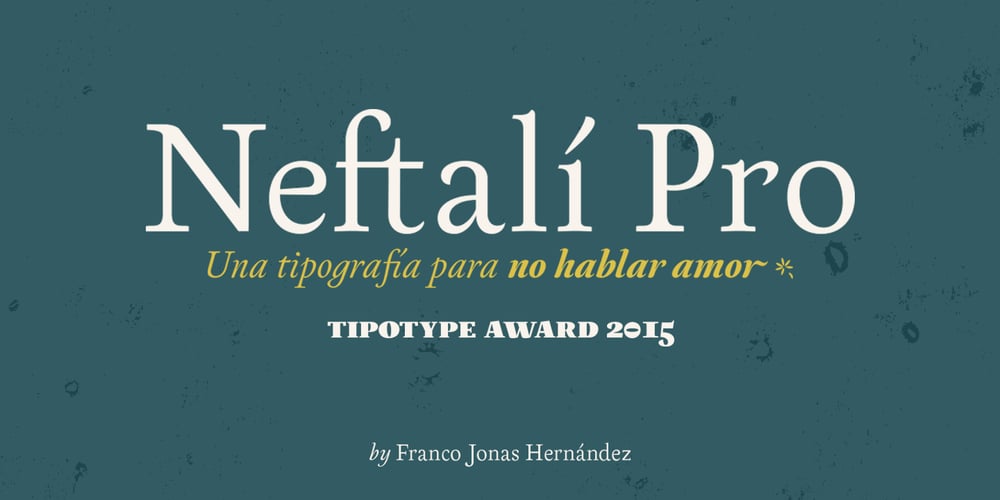
Neftali Pro Font Family was designed by Franco Jonas and published by TipoType. Neftali Pro contains 12 styles and family package options. 2015 First Prize TipoType award. Neftali is a type family designed for continuous reading in long texts & editorial design, created as an interpretation of Pablo Neruda’s “Poema 20”. This work delivers a subtle experimentation of Baroque and Roman styles, rescuing features from some of the most successful chilean typefaces such as “Australis”, “Berenjena” and “Biblioteca”, along with its particular calligraphic details, medium weights, accentuated strokes, and wide curves that seek to project Pablo Neruda’s particular way of reciting. This typeface contains uppercase, lowercase, small caps, oldstyle, and tabular numbers; in addition to a true italic for every weight; and calligraphic details designed to compose his poems. A typography to talk about everything, except love… (Special thanks to: Francisco Gálvez & Patricio Truenos; without the help of the latter, this project wouldn’t have had an ending)